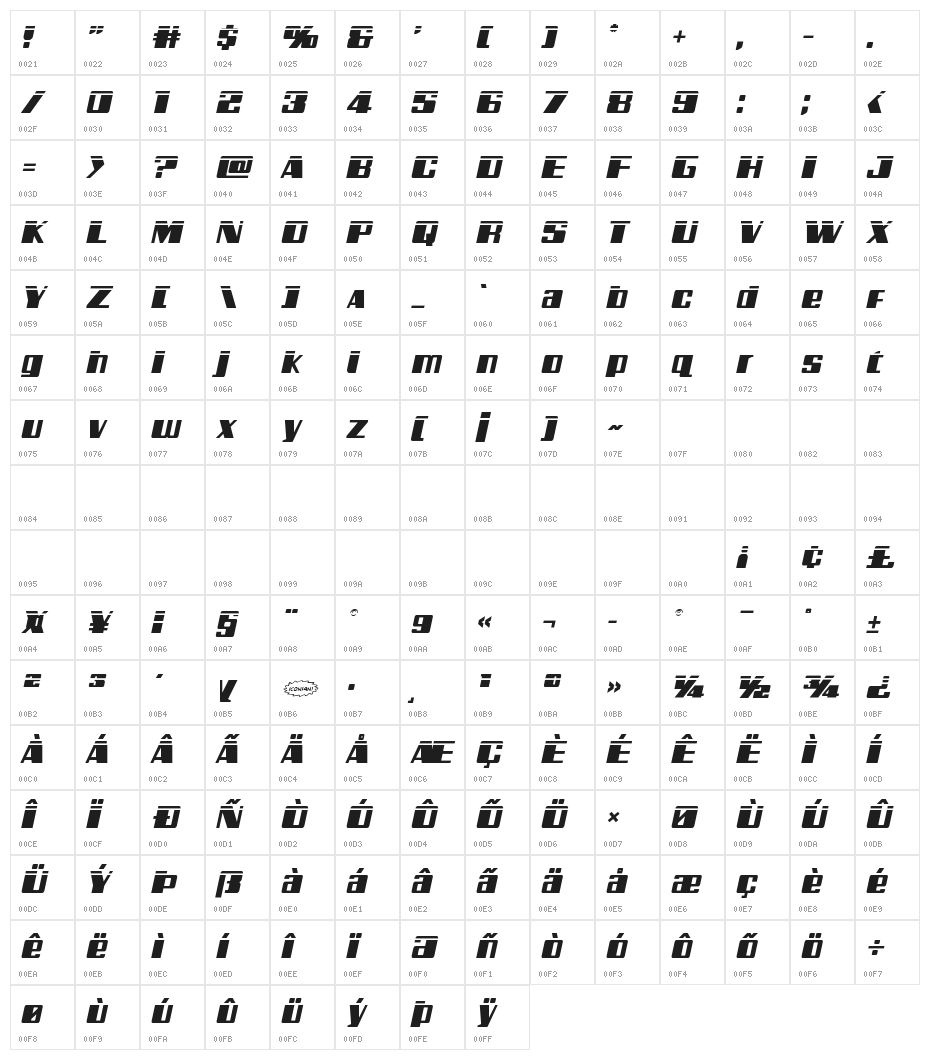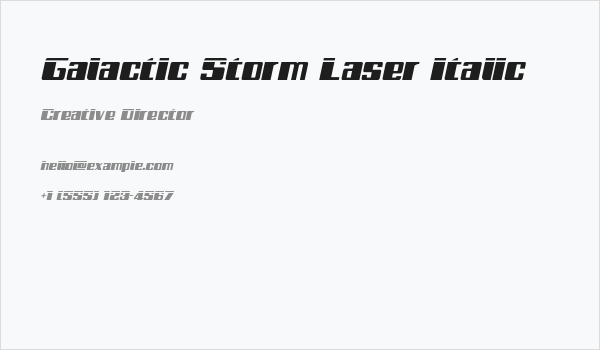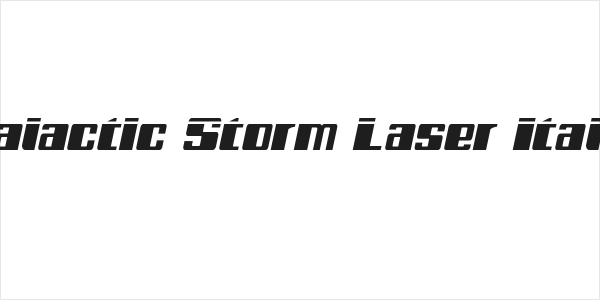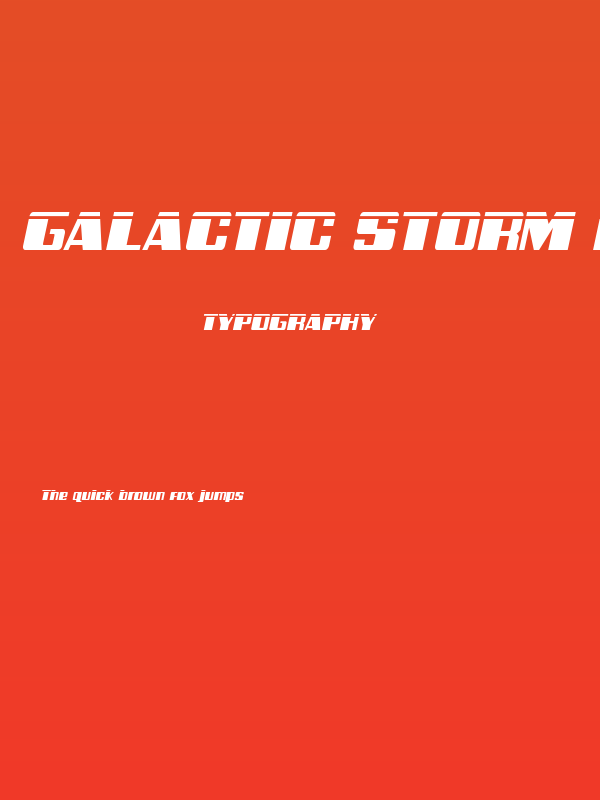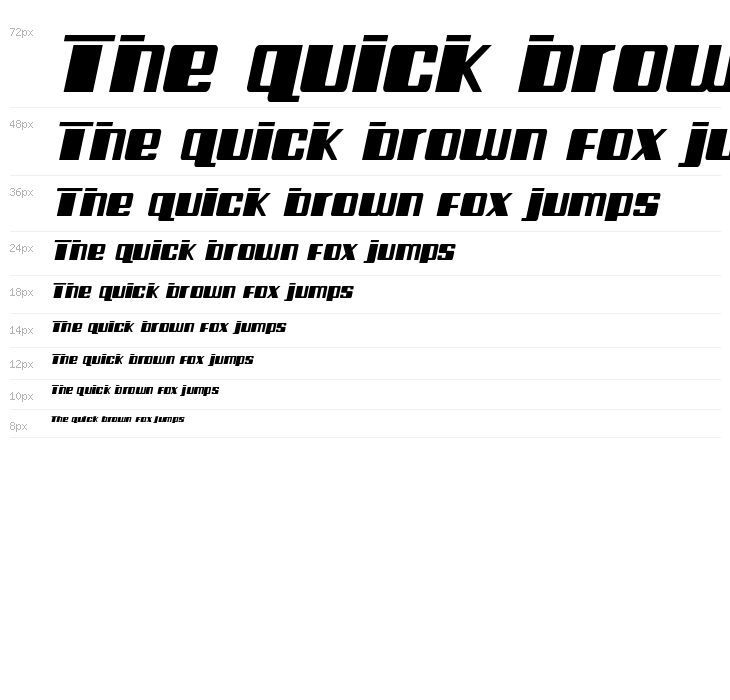
Galactic Storm Laser Italic Font
Galactic Storm Laser Italic Description
This font features a bold and futuristic design with a distinct italic slant, giving it a dynamic and energetic appearance. The characters are angular with sharp edges, reminiscent of sci-fi and high-tech themes. The uppercase letters are particularly striking, with a strong presence that commands attention. The lowercase letters maintain the same angular style, ensuring consistency throughout the typeface. Numbers and special characters are designed to match the overall aesthetic, making this font versatile for various applications. The spacing between characters is tight, enhancing the compact and cohesive look of the text.
| Proposed Projects | Ideal for sci-fi movie posters, tech company logos, video game titles, and futuristic-themed event flyers. |